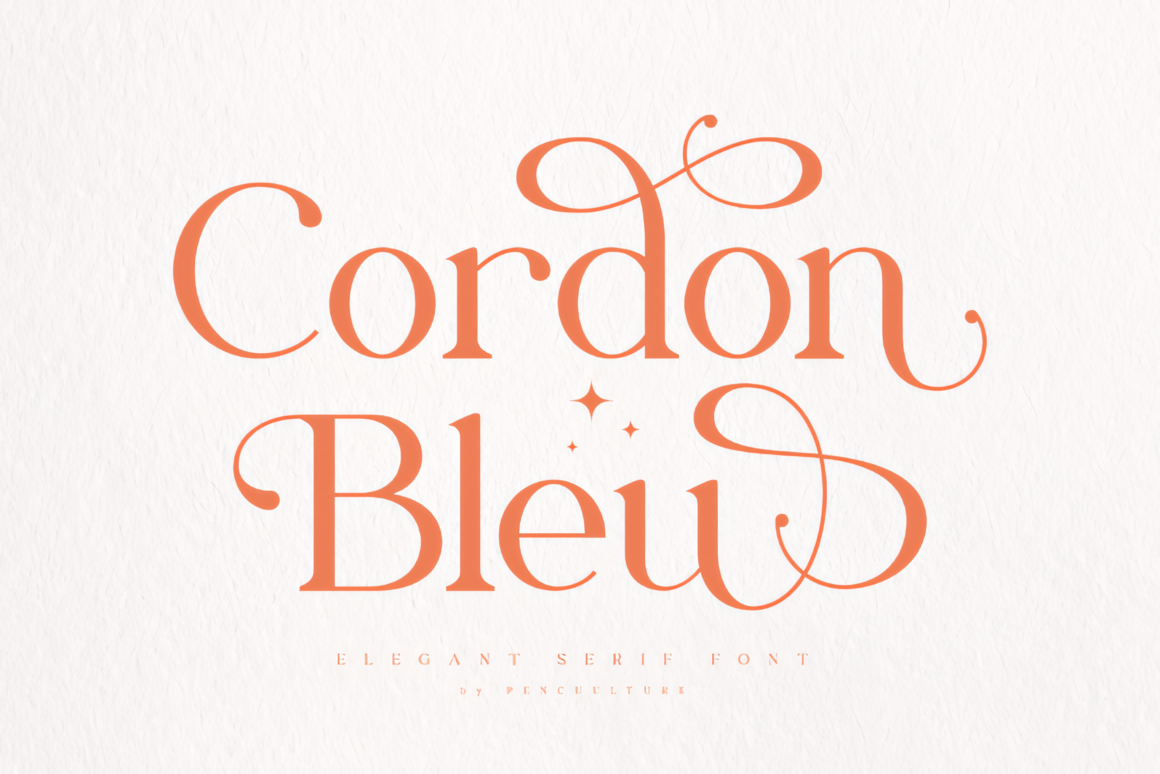
Cordon bleu is a contemporary and stylish serif typeface with more than 50 alternate. As for the alternates that have an elegant shape, this font will be perfect for various purposes such as branding, logo design, magazine, poster, Instagram feed, and a lot more that you may come across with this type of font.
Cordon Bleu Serif Font